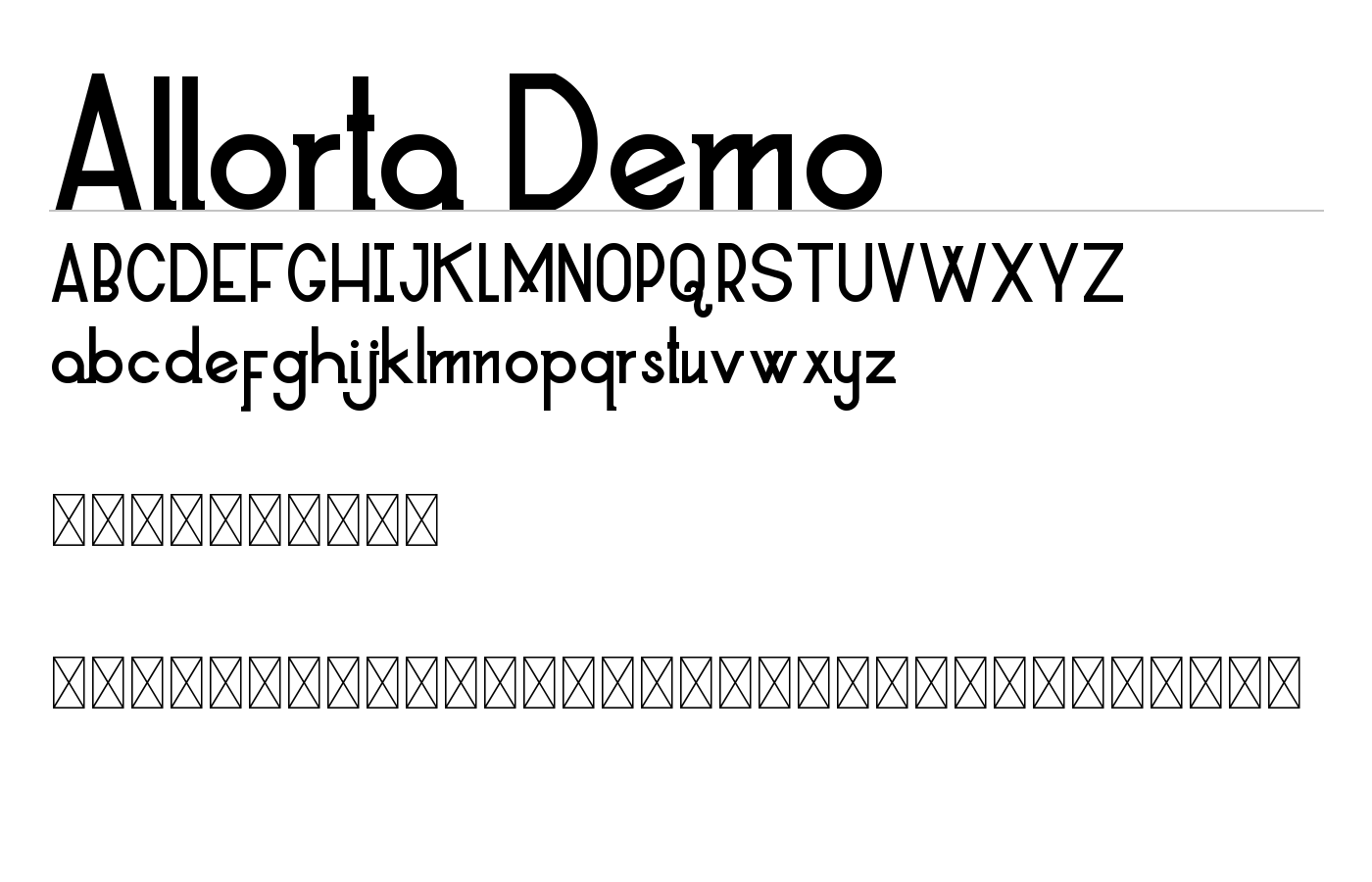
Allorta Demo is a distinctive sans serif font with a narrow width and a quirky, playful character. Its letterforms combine sharp geometric angles with subtle curves, giving it a modern yet slightly retro Art Deco feel, making it ideal for creative branding, headlines, and editorial designs that want to stand out with personality. This font works best where uniqueness and style are key, such as in logos, posters, and fashion-related projects.
Allorta Demo Font